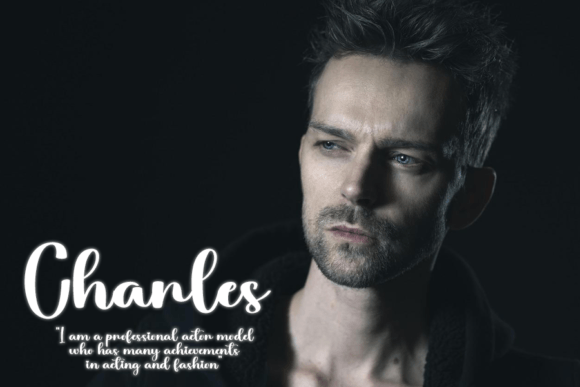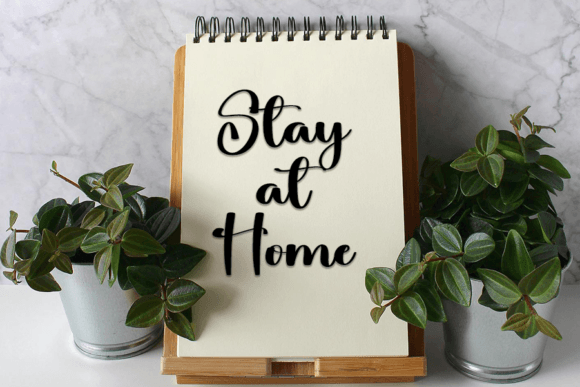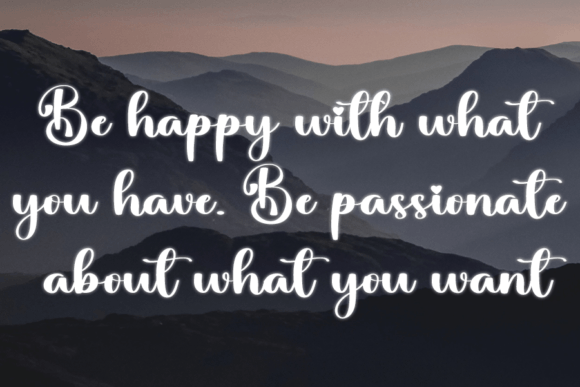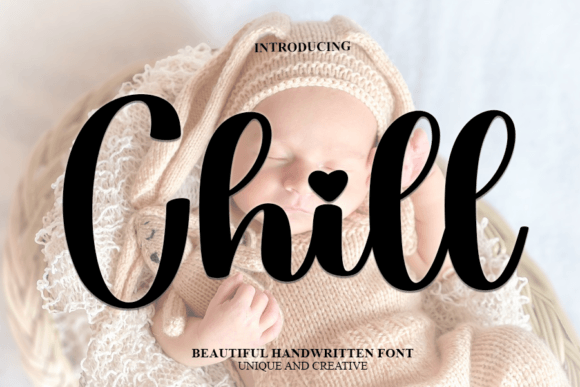
Introduction to Chill Font
Chill is a cool handwritten font with a modern vibe and spotless form, inspired by classic calligraphy.
Not too thin and not too thick, balanced and varied, this font was designed to enhance the beauty of your projects .